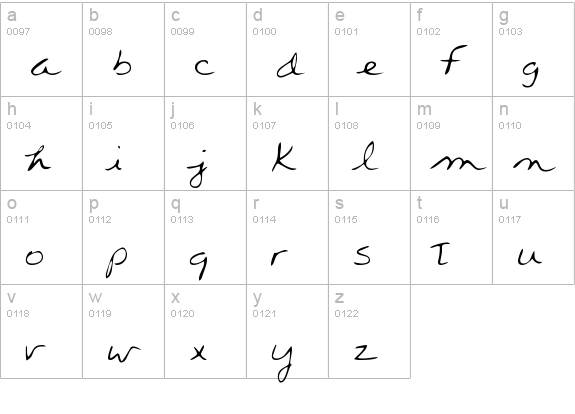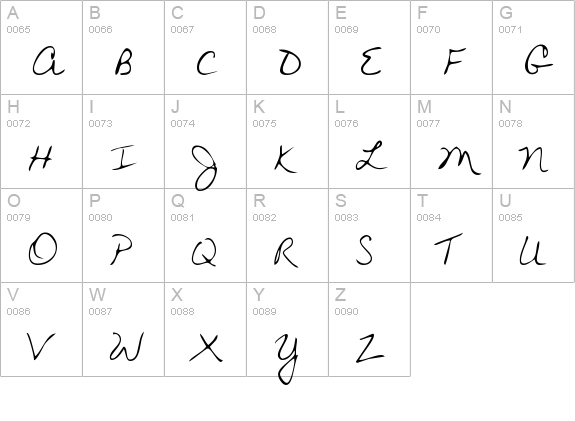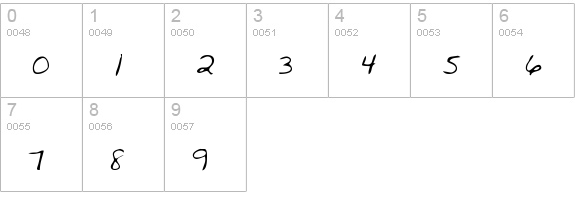
WendysHand Font Details
Introducing WendysHand font, a delightful and whimsical typeface that will bring a touch of playfulness to any project. With its charming hand-drawn style and quirky letterforms, WendysHand is perfect for adding a personal touch to invitations, greeting cards, logos, and more. This unique font is designed with attention to detail, capturing the organic character of handwriting with its subtle variations and imperfect lines. Each letter is carefully crafted to maintain a natural flow and a sense of authenticity, making it feel as if it were written by hand. The versatility of WendysHand font allows it to be used in various contexts, from casual and fun designs to elegant and sophisticated ones. Its playful nature lends itself well to children's books, whimsical illustrations, and even branding for creative businesses looking to stand out. What's even better is that WendysHand font is available for free! Yes, you read that right. You can freely download this fantastic font at FontsMarket.com. Whether you're a professional designer or a hobbyist, this generous offer allows you to explore the endless possibilities of WendysHand without any financial constraints. So, why wait? Give your projects a touch of whimsy and creativity with WendysHand font. Download it for free today at FontsMarket.com and let your imagination run wild.